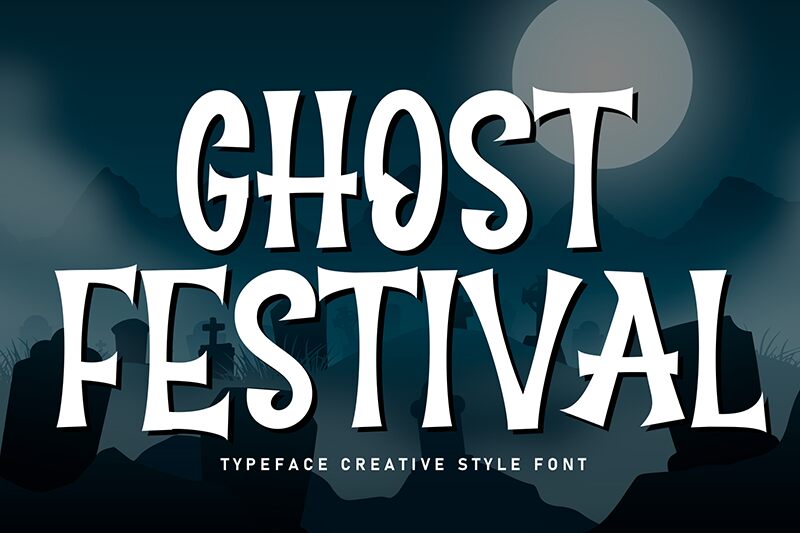
Ghost Festival font by Scratchones is a playful, spooky typeface with a retro aesthetic. This free font fits the Halloween theme perfectly, while similar visual themes like haunted houses and gothic theaters will enjoy it too. A whimsical energy and eccentric aesthetic are created through playful curves and theatrical visual elements.
From Halloween parties, trick-or-treating events, and other festive occasions to retro entertainment productions, the Ghost Festival font guarantees a stunning visual impact. It also looks suitable for use in pop culture projects, vintage advertising, souvenirs, toys, TV shows, and movie title sequences.